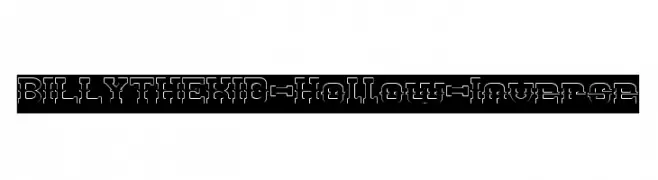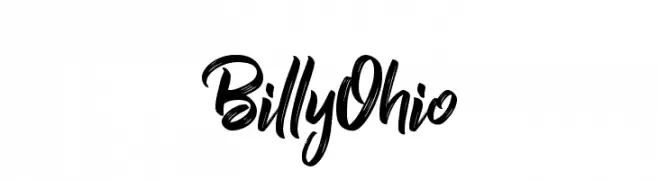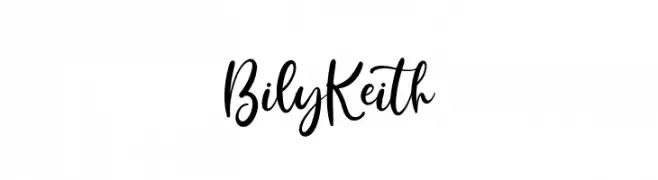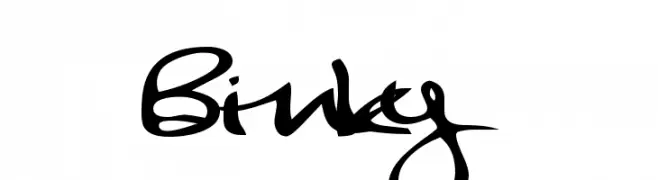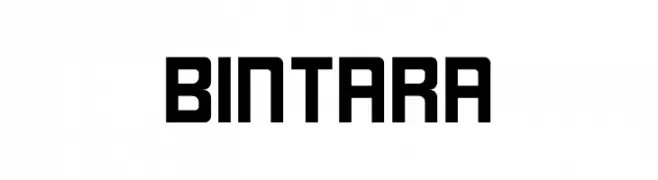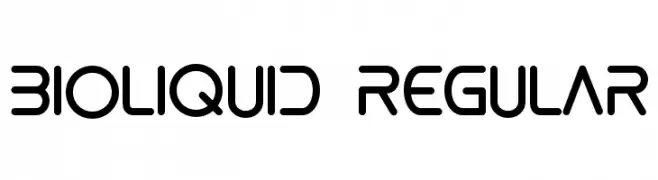
A bold, hollow, geometric font with a sporty and dynamic style.
A bold, hollow, inverse font with a modern, sporty aesthetic.
A bold, angular font with a sporty and aggressive design, ideal for dynamic headlines.
A bold, angular font with a modern, geometric style.
A modern, dot-connected geometric font with a futuristic style.
A modern, dotted line font with a futuristic and technical design.
A graceful and elegant script font with flowing, cursive strokes.
A bold, modern font with playful curves and expressive strokes.
A bold, geometric font with a modern, industrial look.
A bold, distressed font with a rugged, grunge appearance.
A bold, italic font with a modern and dynamic style.
An elegant serif font with decorative swashes and a classic-modern blend.
A bold, pixelated font with a retro digital aesthetic.
A bold, italicized font with a pixelated, glitch-inspired design.
A bold, pixelated, italic font with a retro digital aesthetic.
A pixelated, hollow font with a glitchy, retro digital style.
A bold, hollow, glitch-inspired font with a digital, pixelated style.
A bold, pixelated font with a retro digital style.
A bold, pixelated font inspired by retro digital displays.
A playful and energetic script font with fluid, dynamic strokes.
An elegant serif font with high contrast and sharp serifs, perfect for sophisticated designs.
A playful collection of face icons with various expressions and styles.
A bold, decorative font with a vintage marquee light bulb effect.
A bold, 3D font with vintage flair and shadow effects.
A playful, bunny-eared decorative font with bold, rounded characters.
A lively and expressive handwritten font with fluid, dynamic strokes.
A bold, decorative font with textured patterns and a 3D shadow effect.
A playful, handwritten font with bold, rounded strokes and a casual, dynamic style.
A dynamic brush-style font with expressive, fluid strokes.
A bold, electrifying font with angular edges and dynamic lightning motifs.
A pixelated, blocky font inspired by retro digital displays.